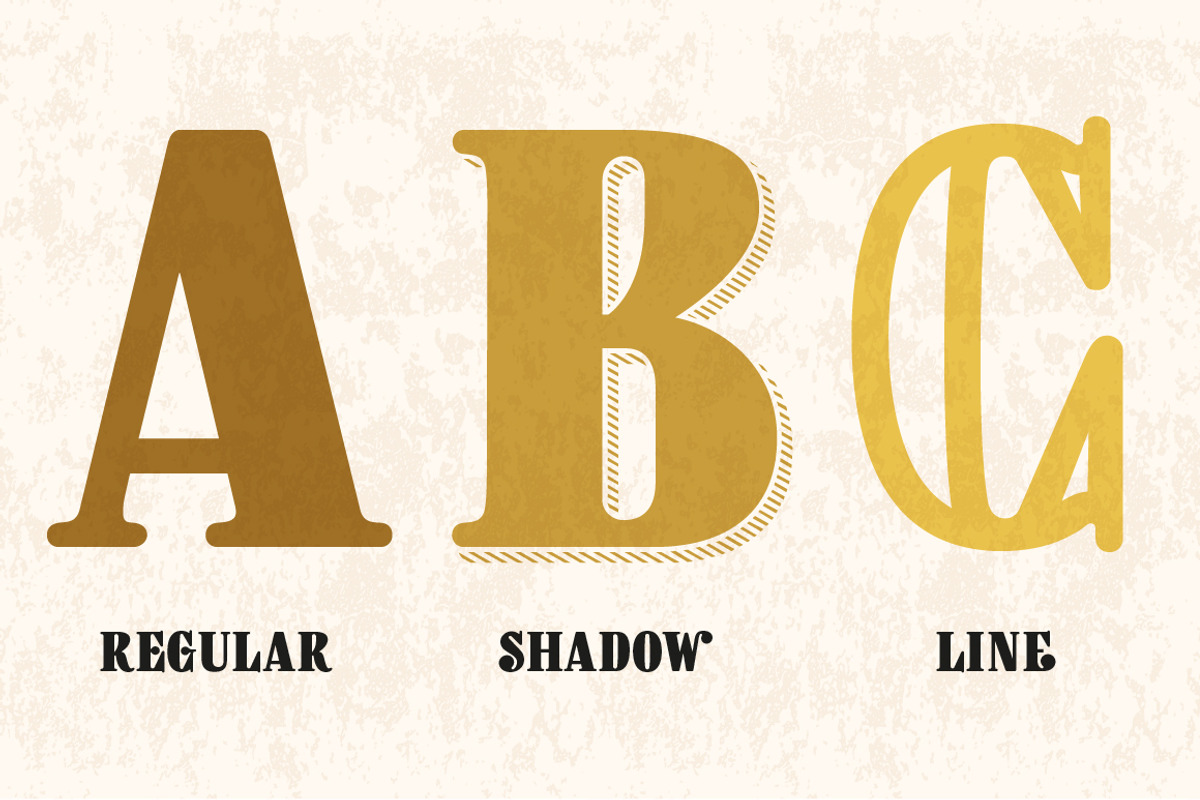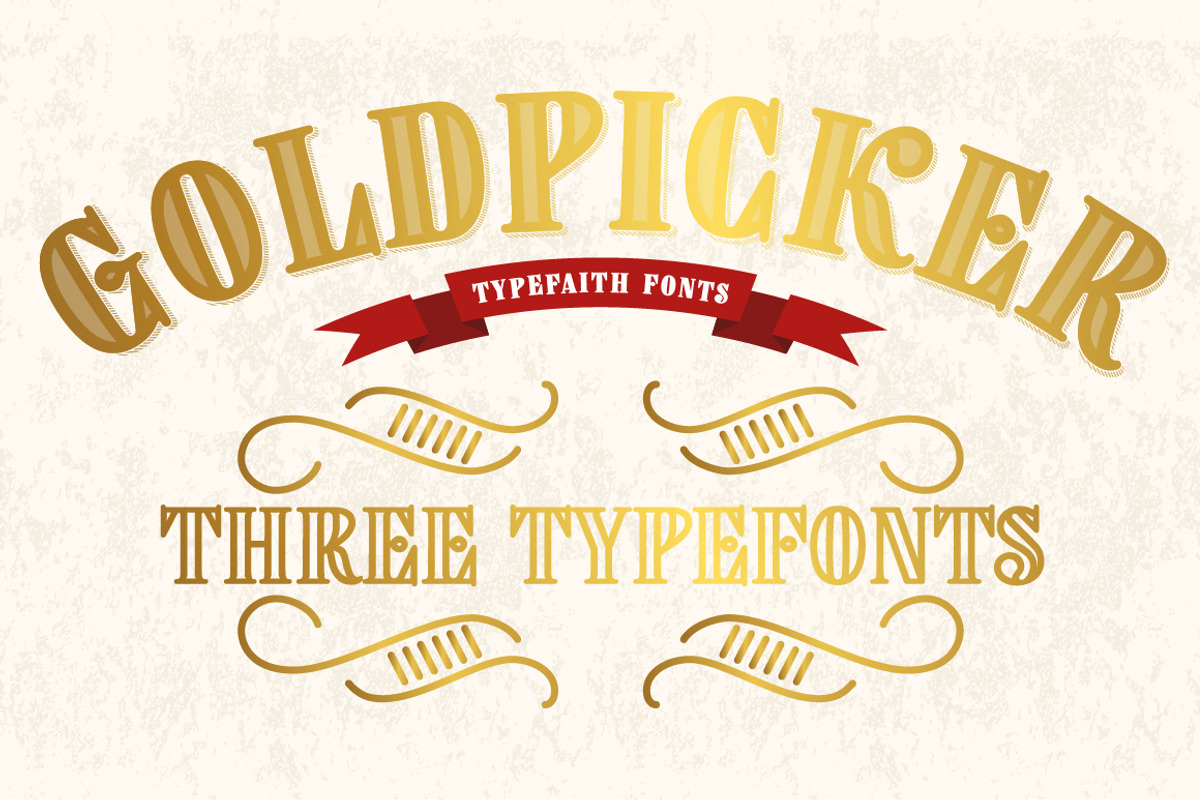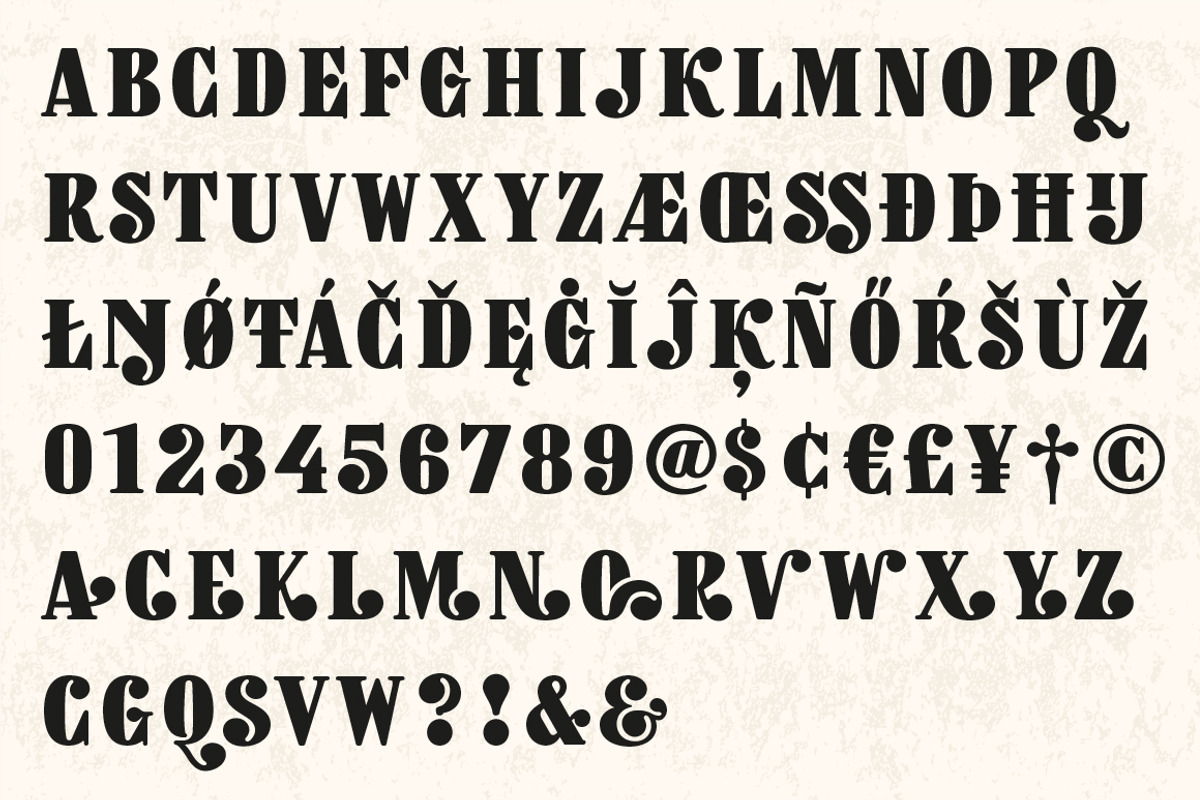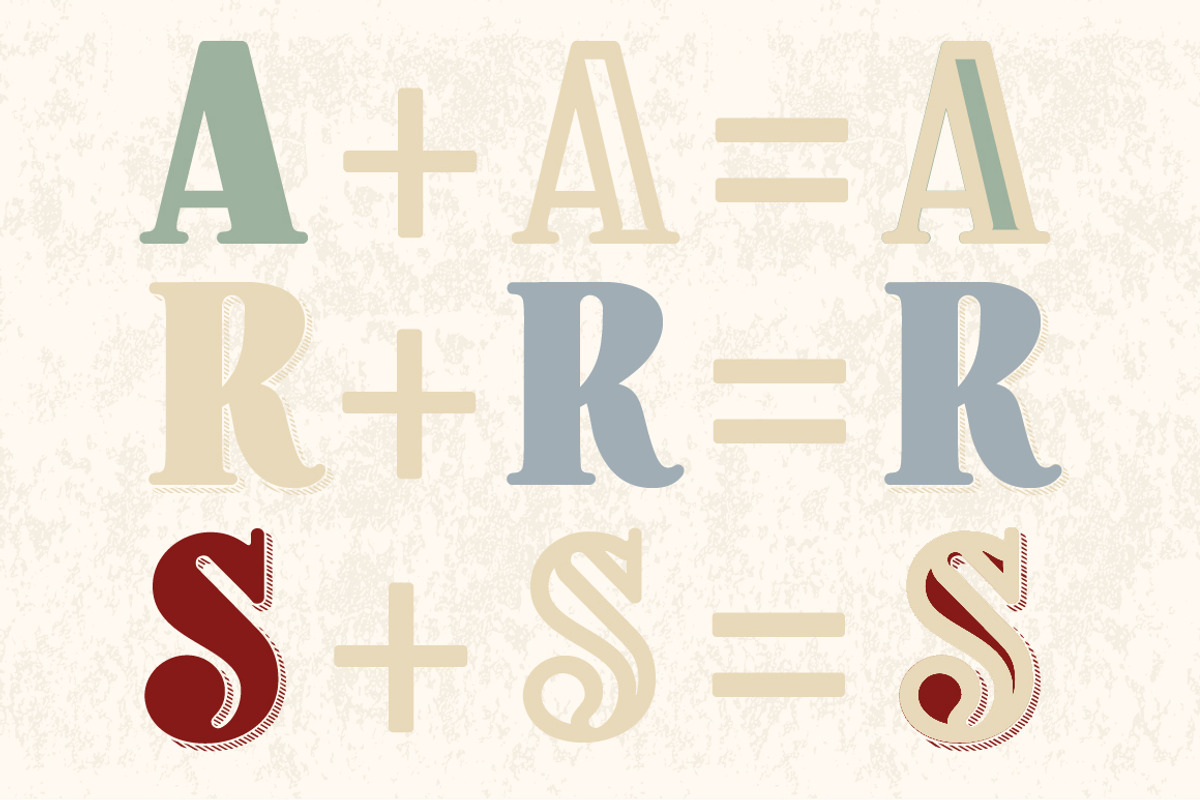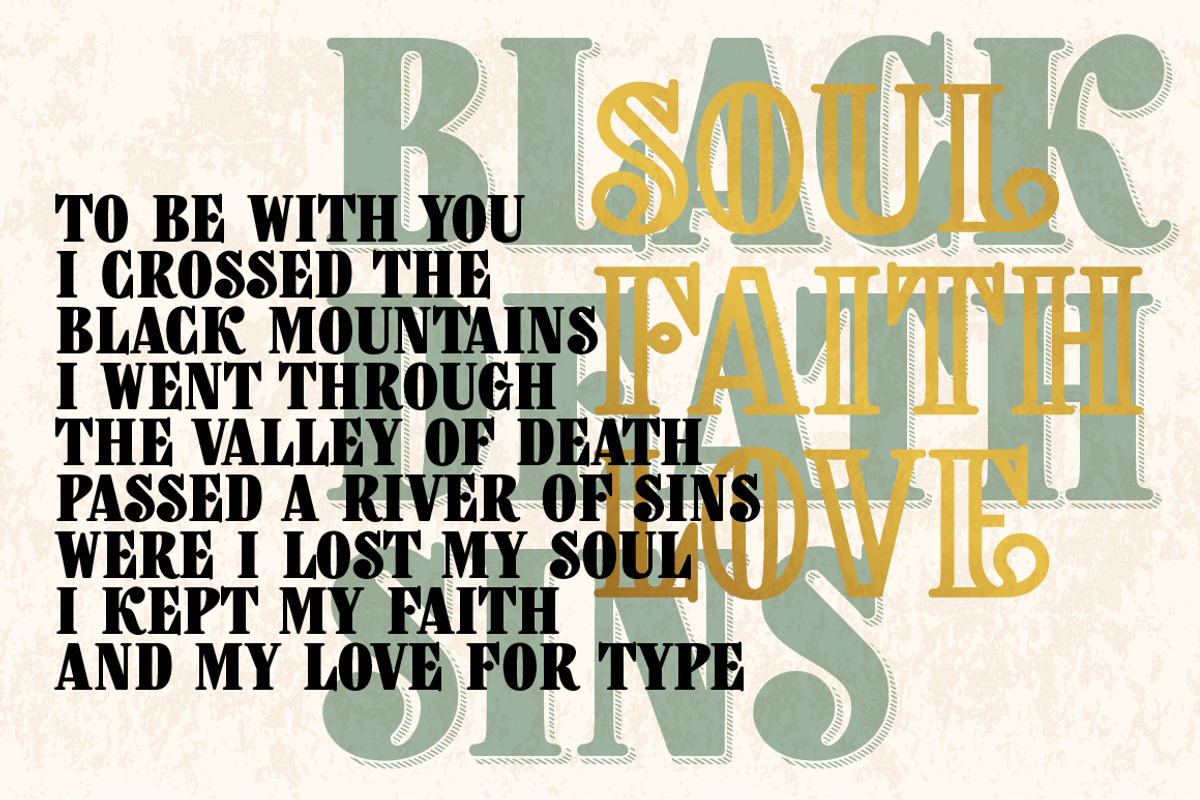
Goldpicker
Goldpicker by TypeFaith Fonts is a font selected for branding, posters, packaging, typography.
- Each font comes with a set of Alternatives for characters C G Q S V W & and a set for endings for the characters A C E K L M N O R V W X Y Z
- Goldpicker Regular
- Goldpicker Line
- Goldpicker Shadow
Goldpicker by TypeFaith Fonts fits naturally into Branding, posters, packaging, typography.